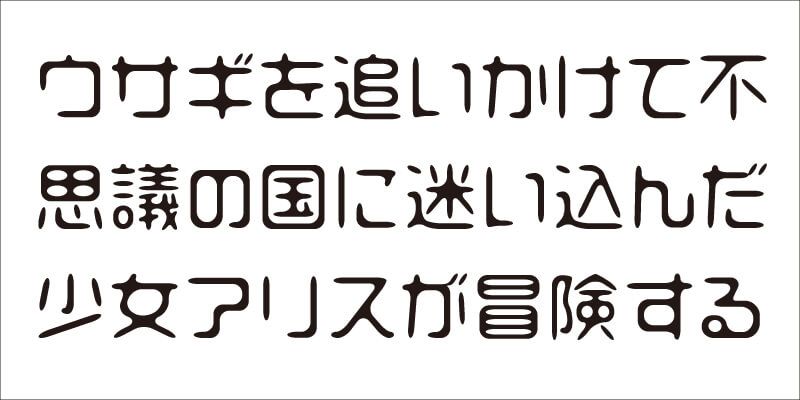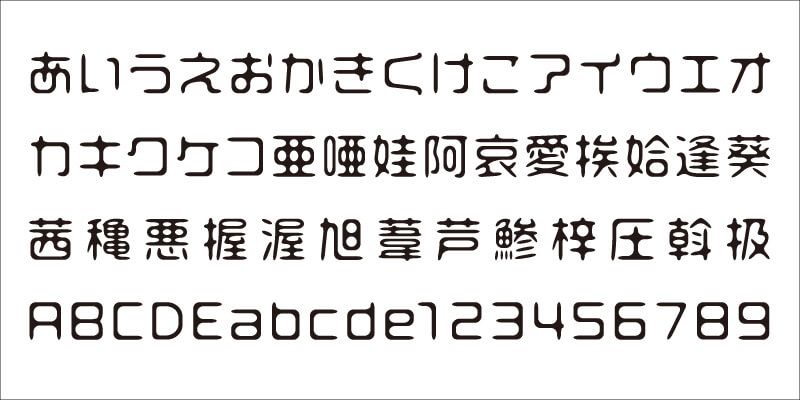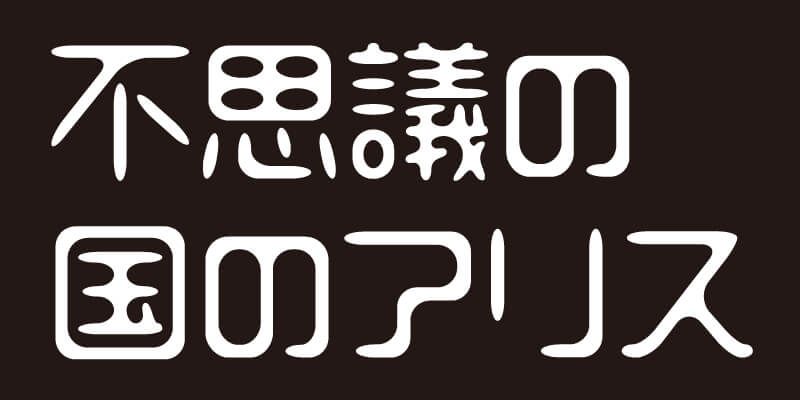
VDL-TeraG can be said to be a rubber-faced typeface, because its expression changes with the style of text composition applied. With its subtle irregularity in widths of strokes, as well as its rounded beginnings and ends of strokes, the typeface has a changing appearance as if a living thing or a liquid; sometimes it may look “cute and mischievous”, while other times, it may look “weird yet innocent”. . . .